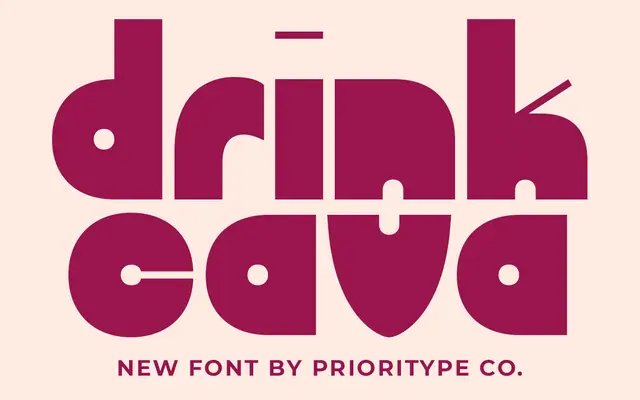
Drink Cava specimen from Prioritype
A bold display sans with retro-modern character, mixing chunky weight with slim detailing on select letterforms for poster and branding use.
Released in 2024 by Prioritype Co, Drink Cava pairs heavy weight with slim contrasting details on certain characters, giving it a distinctly retro-modern feel that draws on 60s through 90s graphic vernacular. The single bold weight covers uppercase, lowercase, numerals and punctuation, with multilingual support spanning a wide range of Latin-based languages. Best suited to posters, logotypes, merchandise and social media graphics where visual punch is the priority.
A bold display typeface with retro-modern character, combining chunky letterforms with slim contrasting details; sits firmly in the display category rather than a functional text sans.